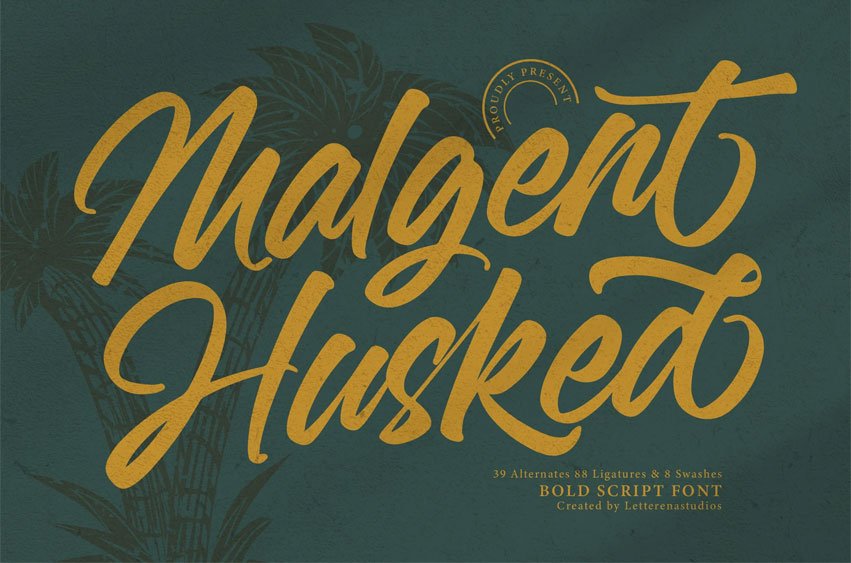
Malgent Husked Font is suitable to complement your digital and printed creative products.
This font is perfect for posters, social media posts, branding, personal projects, etc.